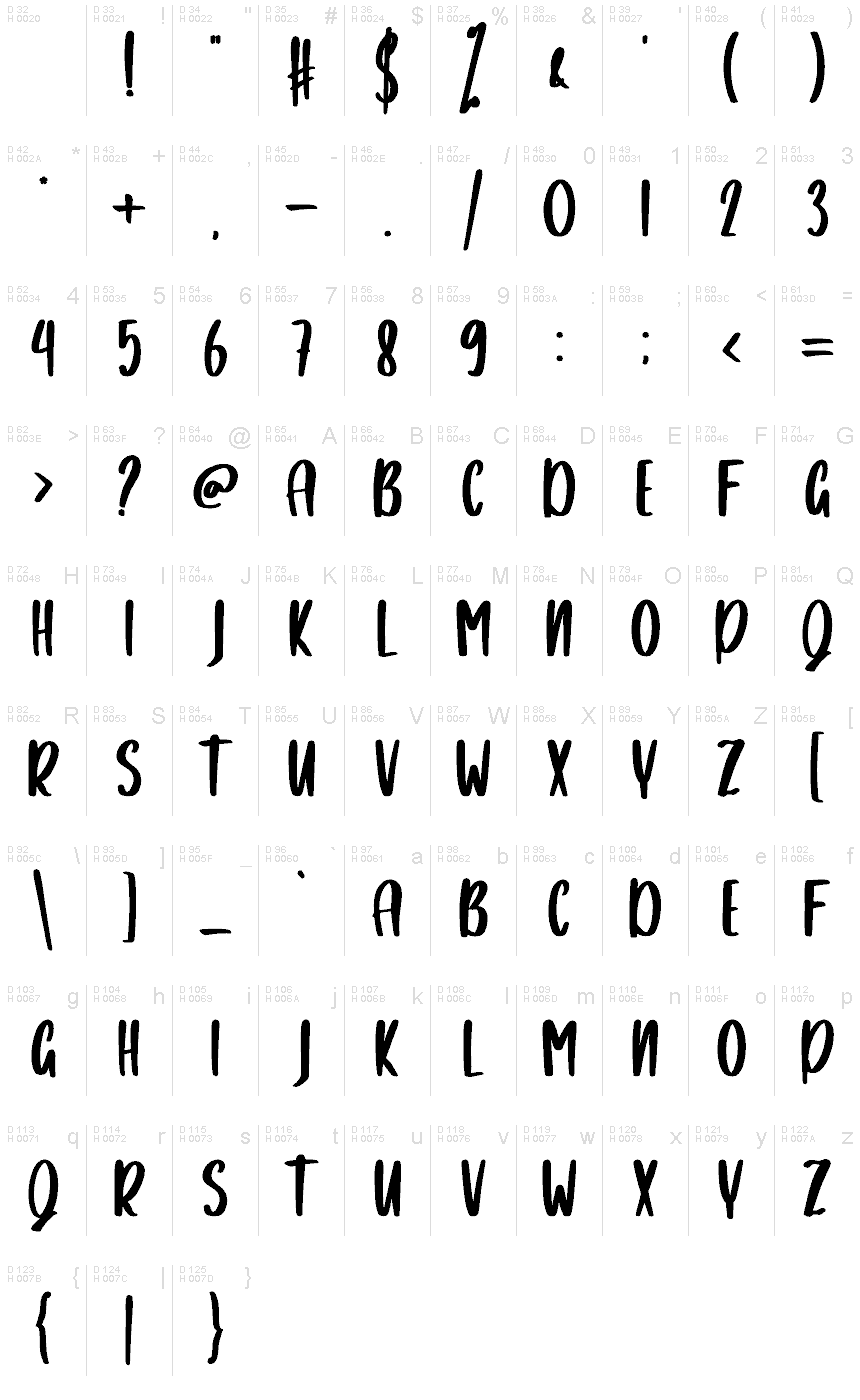
Ghosure
Ghosure font by Skiiller Studio is a condensed handwritten script with hand-drawn expressive letters. With its modern brush style and casual unique style, Ghosure captures the beauty of simplicity and creativity all at once. Every character communicates an energetic vibe, with the whole font leaving a memorable impact with its presence.
A free handwritten font of strong versatility, Ghosure can find any dark or light-colored surface for its branding designs such as logotypes or business card designs. And these can belong to fashion brands, interior designers, architects, film production agencies, etc. Or you can delightfully use it for typography art, packaging designs for food items and healthy drinks.